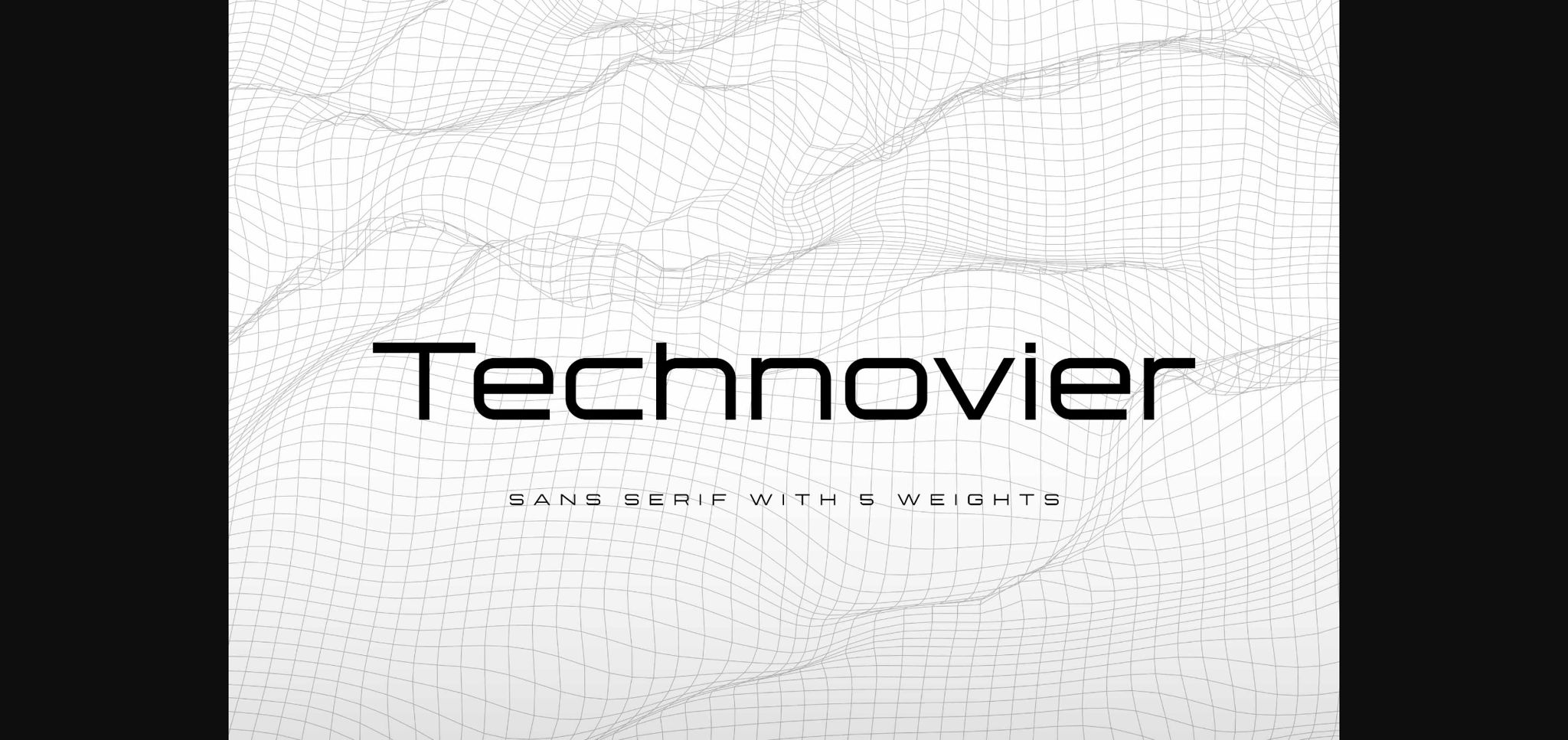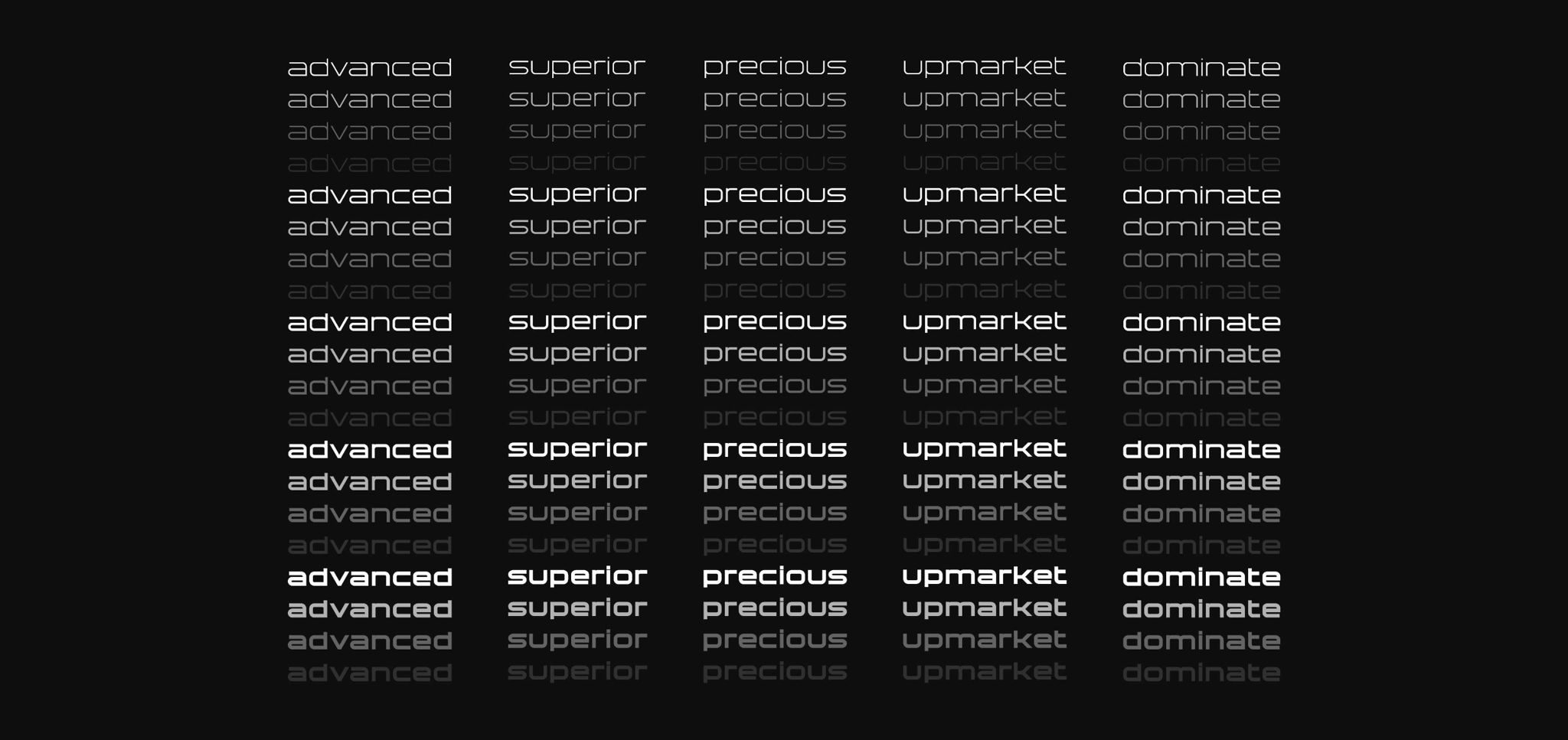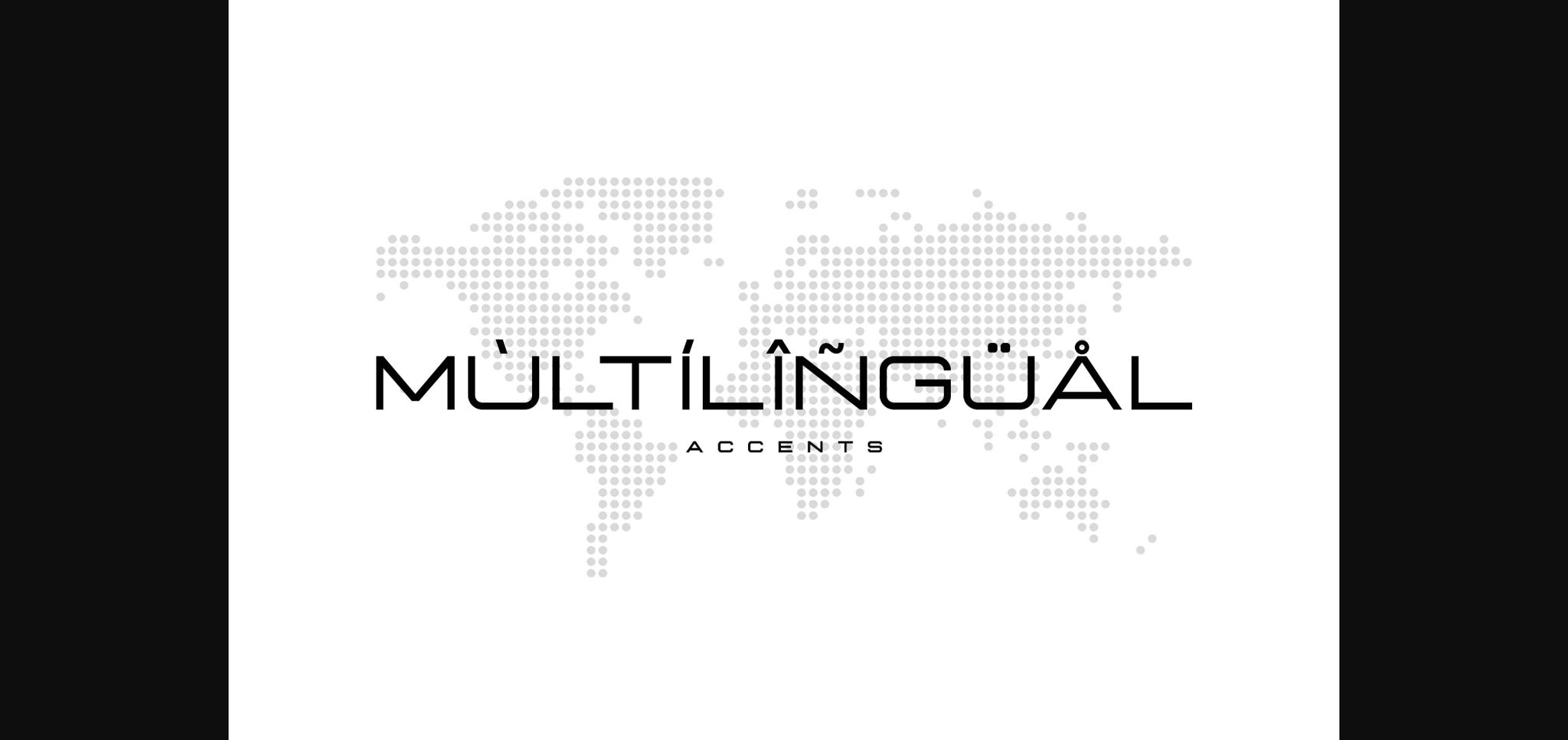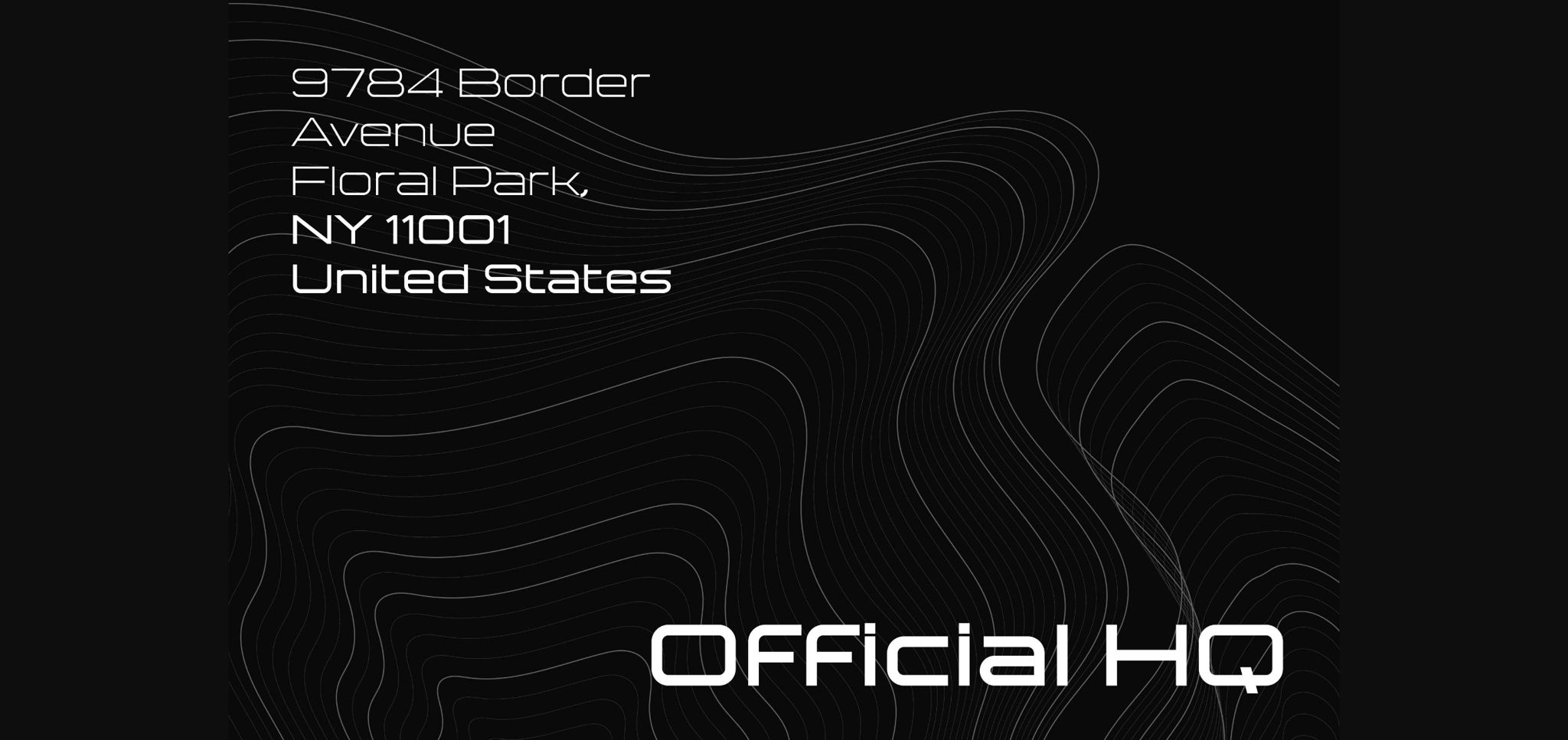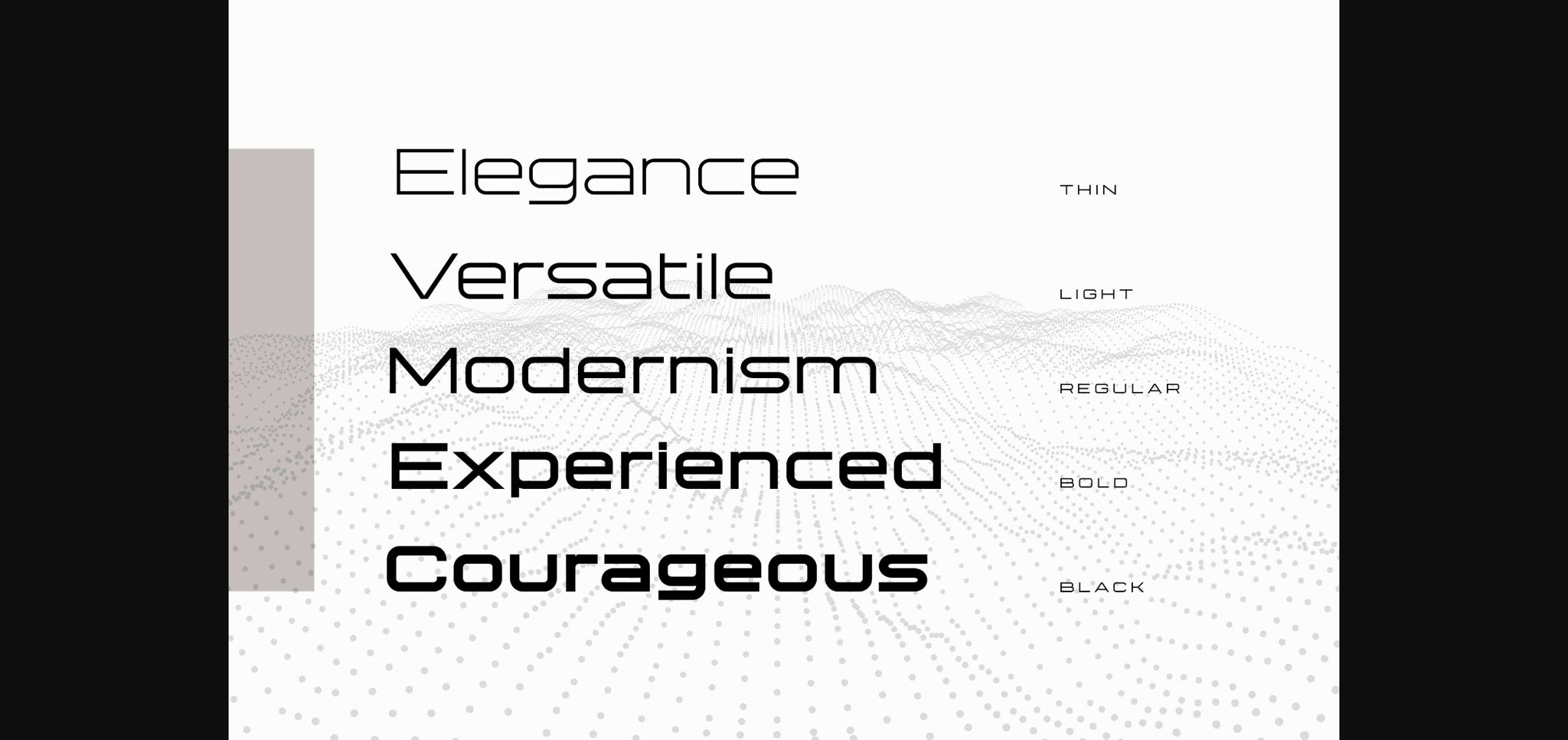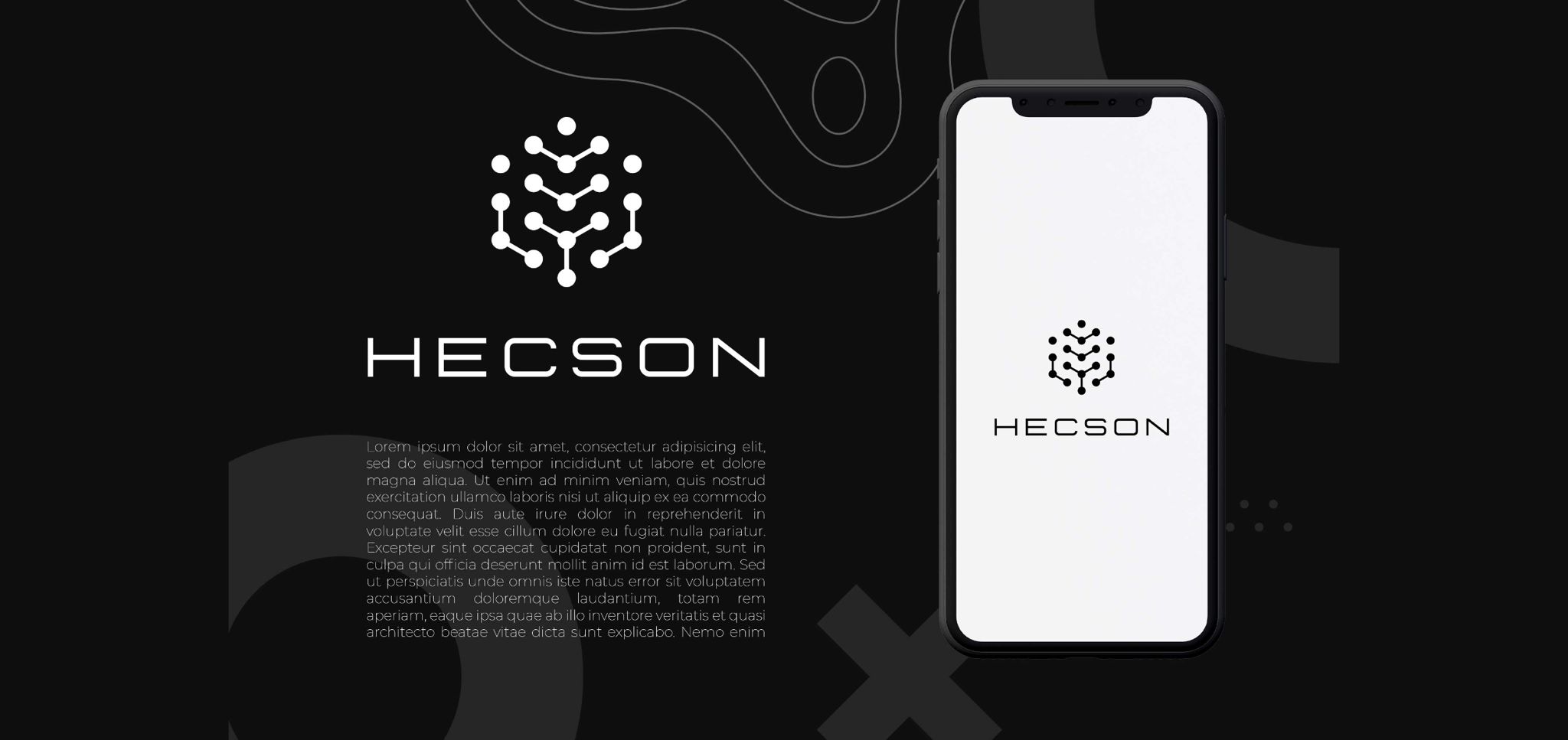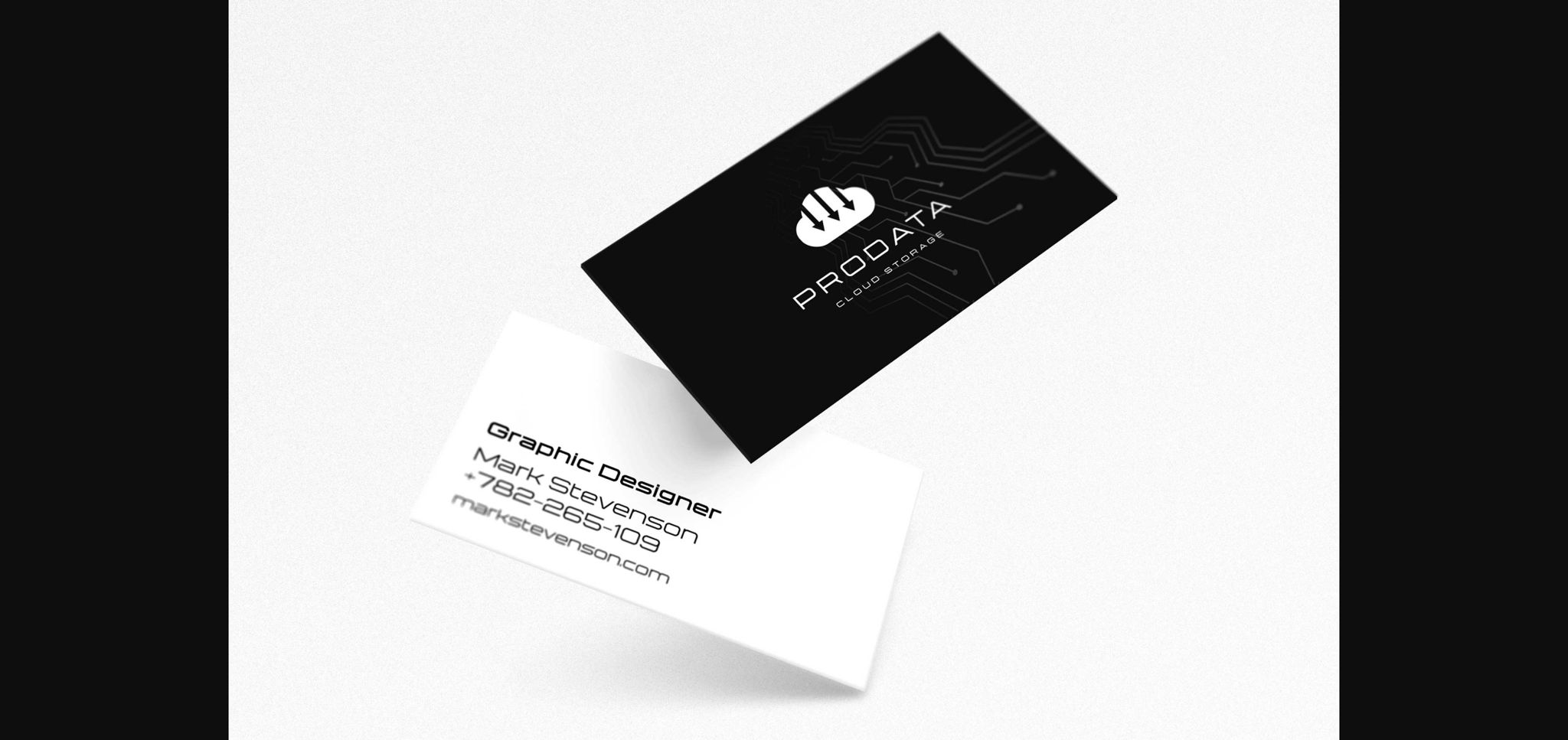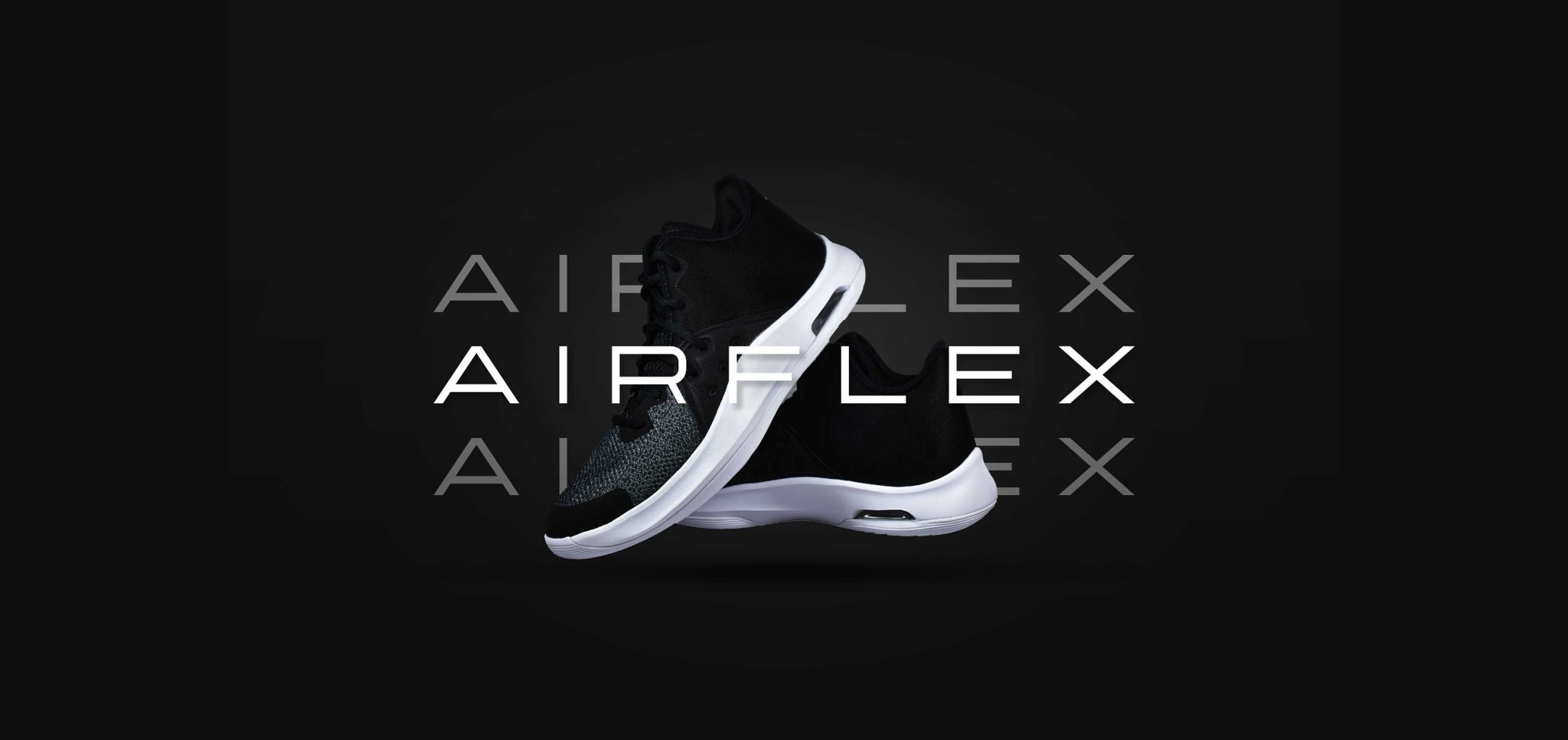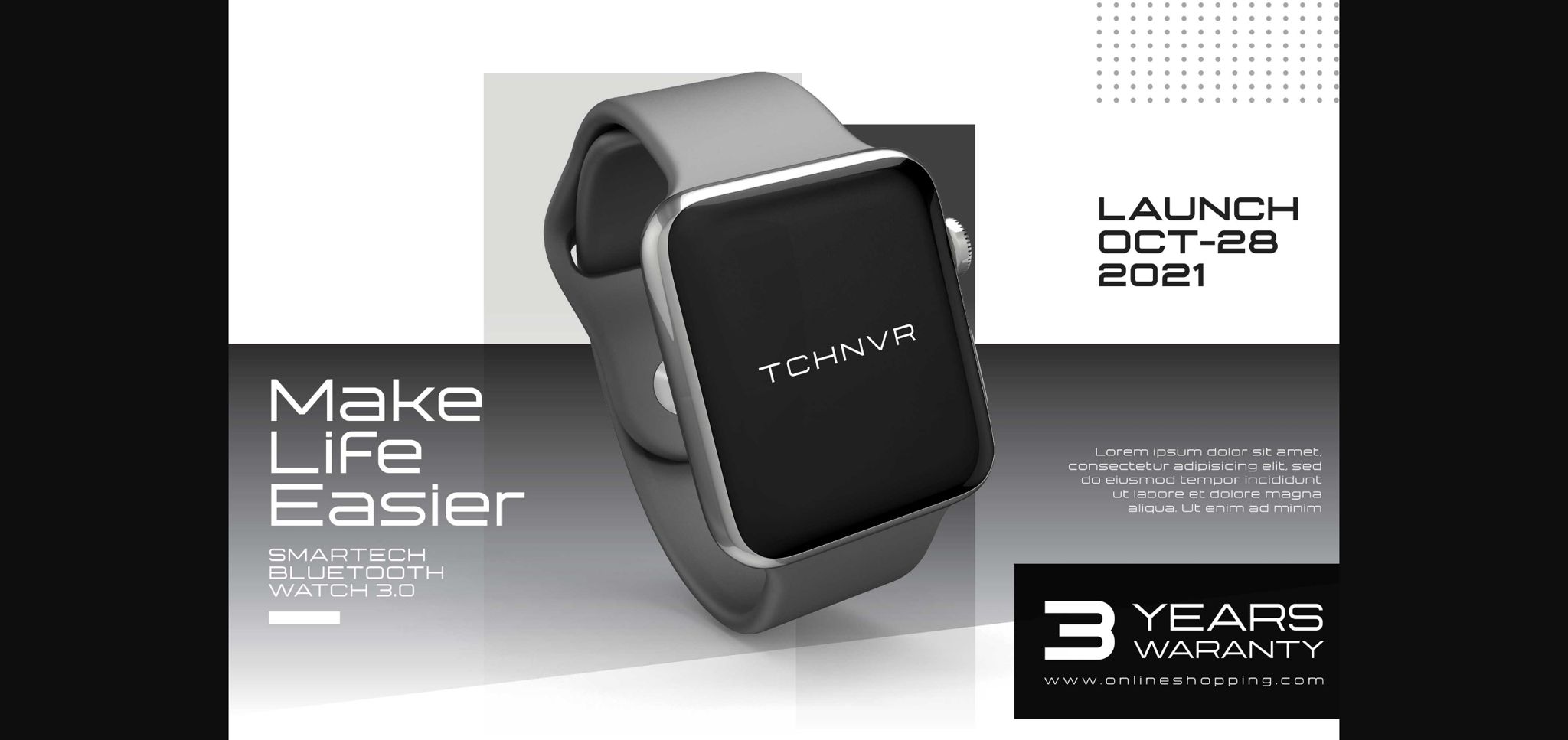
Technovier Font
About Technovier Font
“Technovier” emerges as a sleek and polished sans serif font, designed with minimalism and neatness in mind. Its clean lines and precise geometry make it a versatile choice for a wide range of design projects, effortlessly blending into various creative endeavors and enhancing their visual appeal.
With its understated elegance, “Technovier” adds a touch of sophistication to any project it graces. Whether used in branding, logo design, web content, print materials, or beyond, this font brings a sense of clarity and professionalism that captivates viewers and leaves a lasting impression.
Incorporating “Technovier” into your creative ideas unlocks a world of possibilities. Its versatility allows it to seamlessly adapt to different design contexts, ensuring consistency and coherence across various elements. From sleek and modern layouts to bold and impactful compositions, this font serves as a reliable foundation for expressing your creativity.
Whether you’re crafting sleek corporate identities, designing captivating advertisements, or creating engaging social media graphics, “Technovier” offers a clean and contemporary typographic solution that elevates your designs to new heights. Its minimalist aesthetic adds a sense of sophistication and modernity to every project, making it stand out with effortless style.
In summary, “Technovier” is more than just a font—it’s a versatile tool that empowers creativity and enhances the visual impact of any project. By incorporating “Technovier” into your creative endeavors, you’ll notice how it brings a sense of neatness and refinement that helps your designs truly shine.